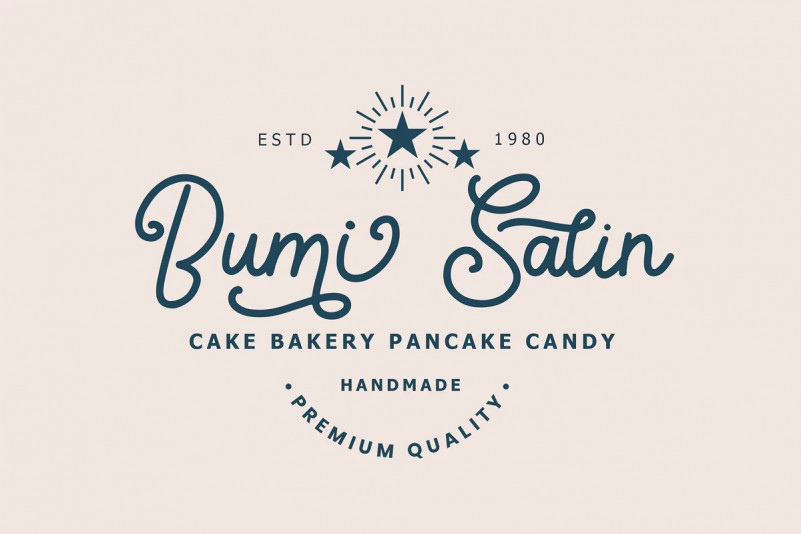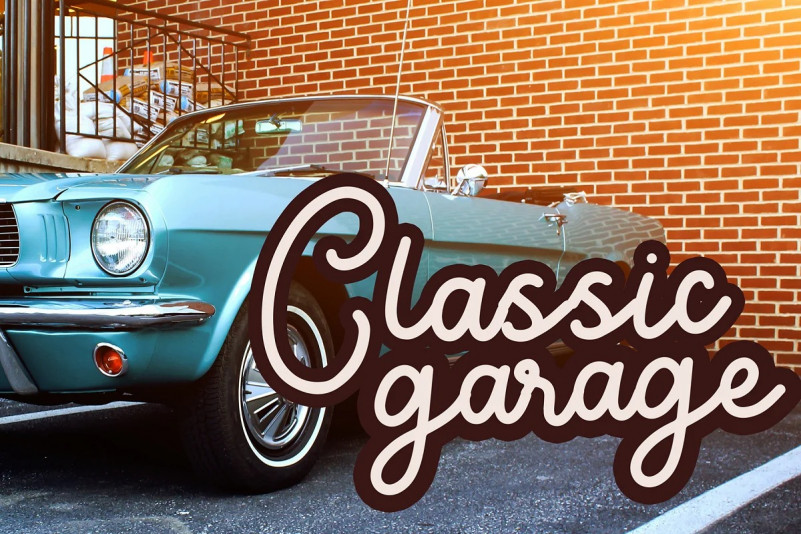
Angitany Font
Angitany Script Font is a beautiful monoline font with vintage style. It’s perfect for adding a graceful feel to any design project.
Angitany is perfect for branding projects, logo, wedding designs, social media posts, advertisements, product packaging, product designs, label, photography, watermark, invitation, stationery and any projects.